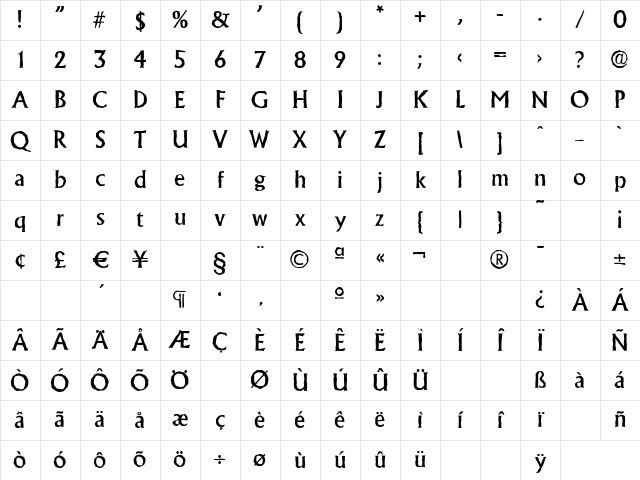
Design Context for AdelonAntique-Medium
AdelonAntique-Medium wears its vintage influences proudly, with letterforms that recall mid-century signage, classic packaging, and nostalgia-driven design.
Font Pairing: Combine AdelonAntique-Medium with a simple slab or neutral sans - period-accurate companions reinforce the vintage feel without competing for attention.
Pro Tip: Lean into AdelonAntique-Medium's period character by pairing it with aged paper textures, muted colour palettes, and vintage illustration styles.